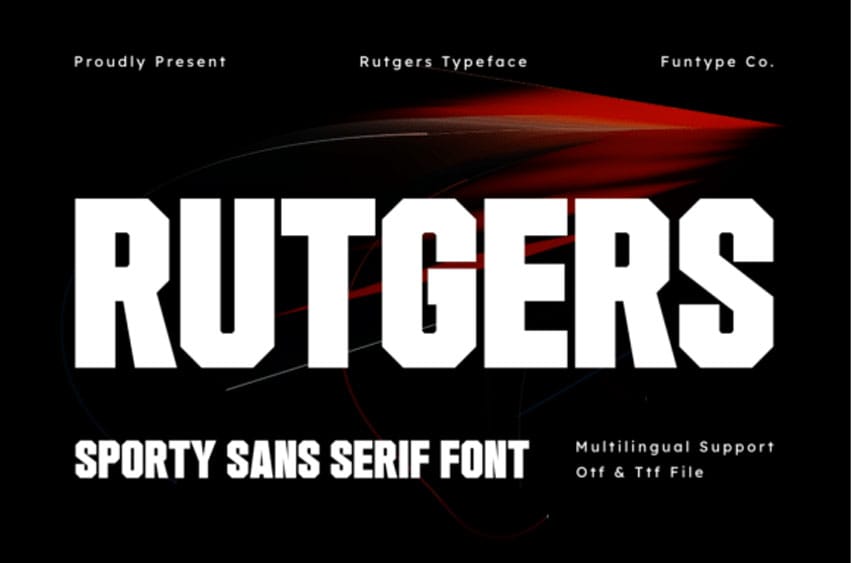
Rutgers Font is a massive, robust, and beautifully striking sporty sans serif font tailored for precise, high-impact branding and commercial craft design. Showcasing thick blocky varsity letterforms and clean tracking, this typeface is exceptionally qualified for commanding headlines, aggressive urban streetwear clothing lines, athletic sports jerseys, custom vinyl decals, varsity team logos, and bold promotional event posters.
Its authoritative, heavy, and perfectly balanced octagonal footprint infuses screen prints and custom merchandise layouts with an advanced, cutting-edge athletic finish. Furnished in OTF and TTF standard formats with full multilingual support for a clean integration across all leading creative graphic design suites, cutting machine software, and fabric printing systems.